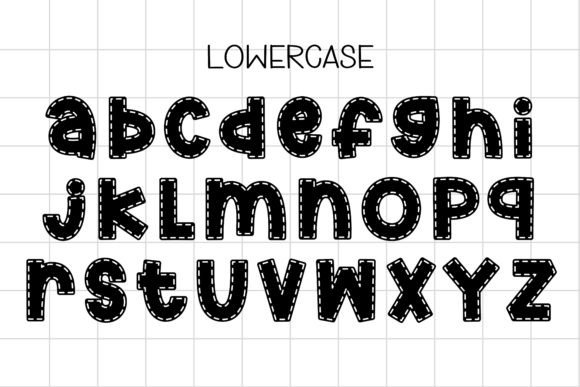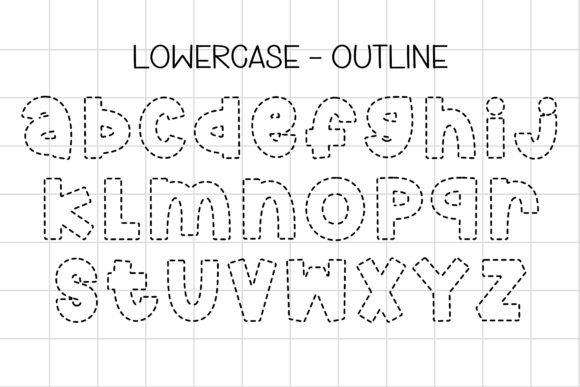
Dash Font
Dash is designed in a playful and adorable decorative font style. Whether you’re using it for crafting, digital designing, presentations, or greeting card making, it’s perfect! The only limit is your imagination!